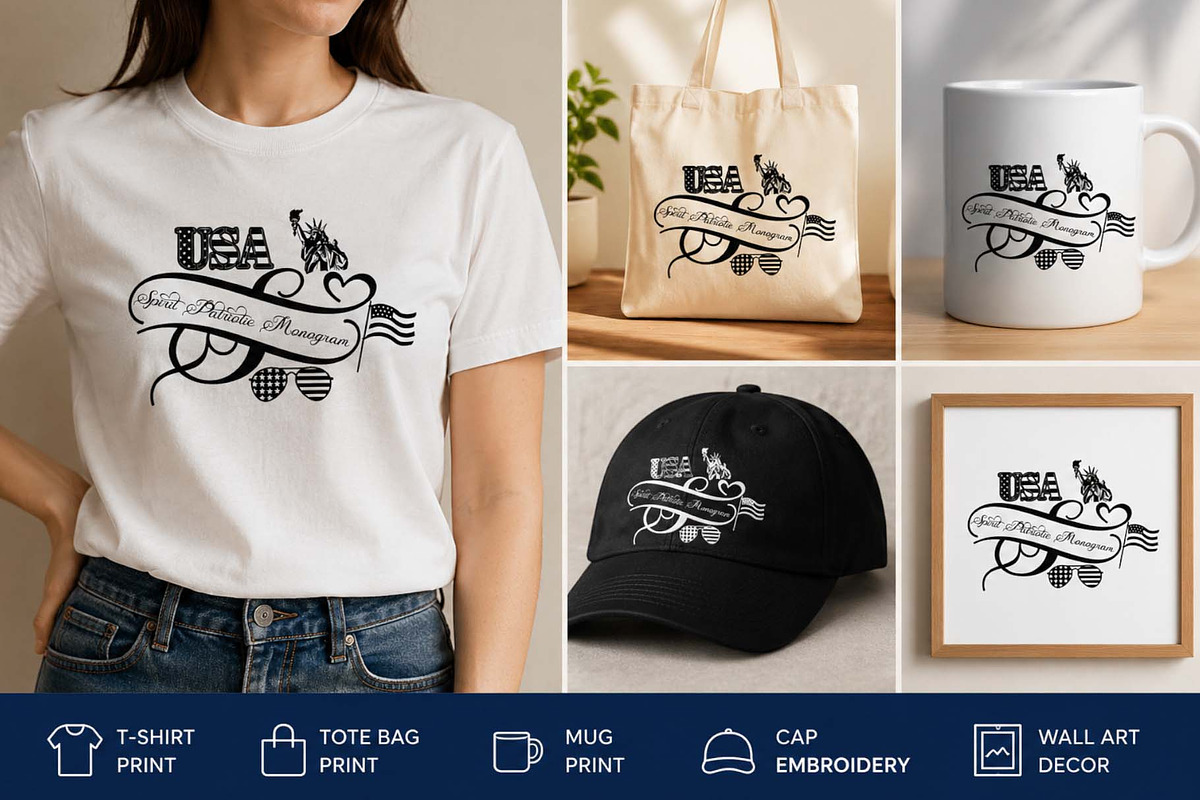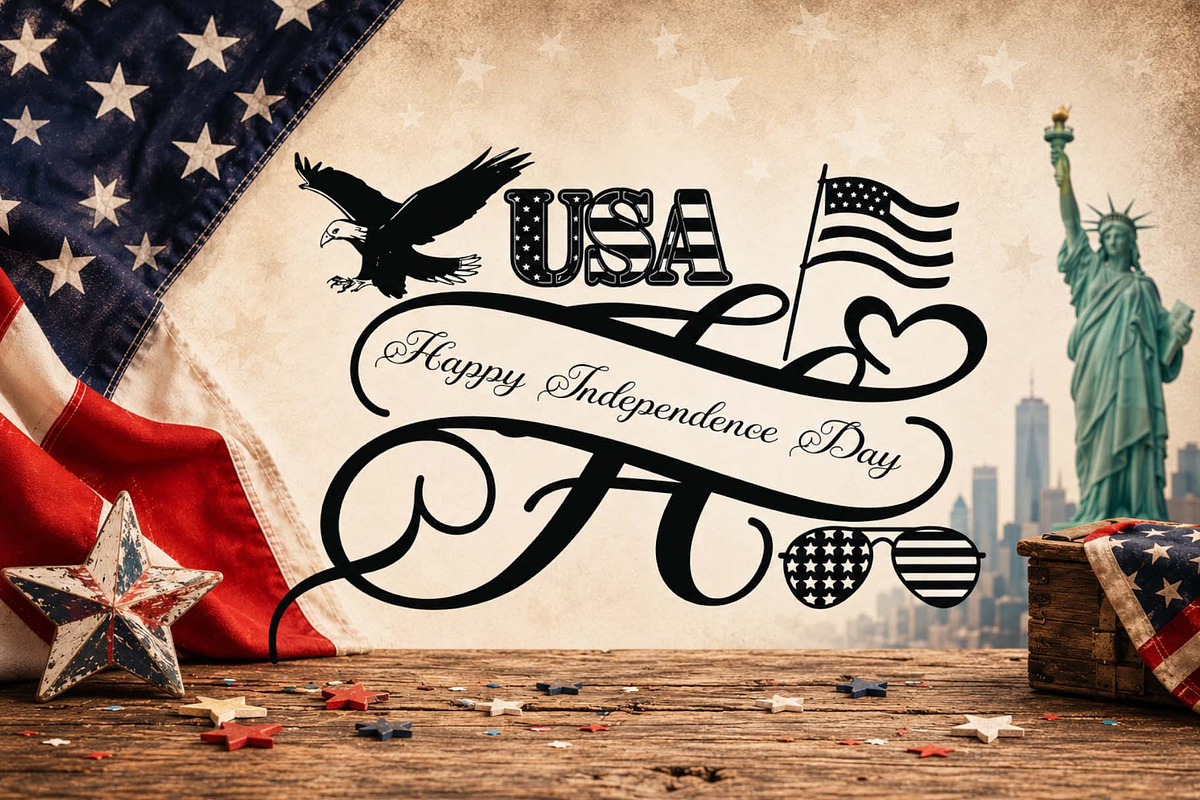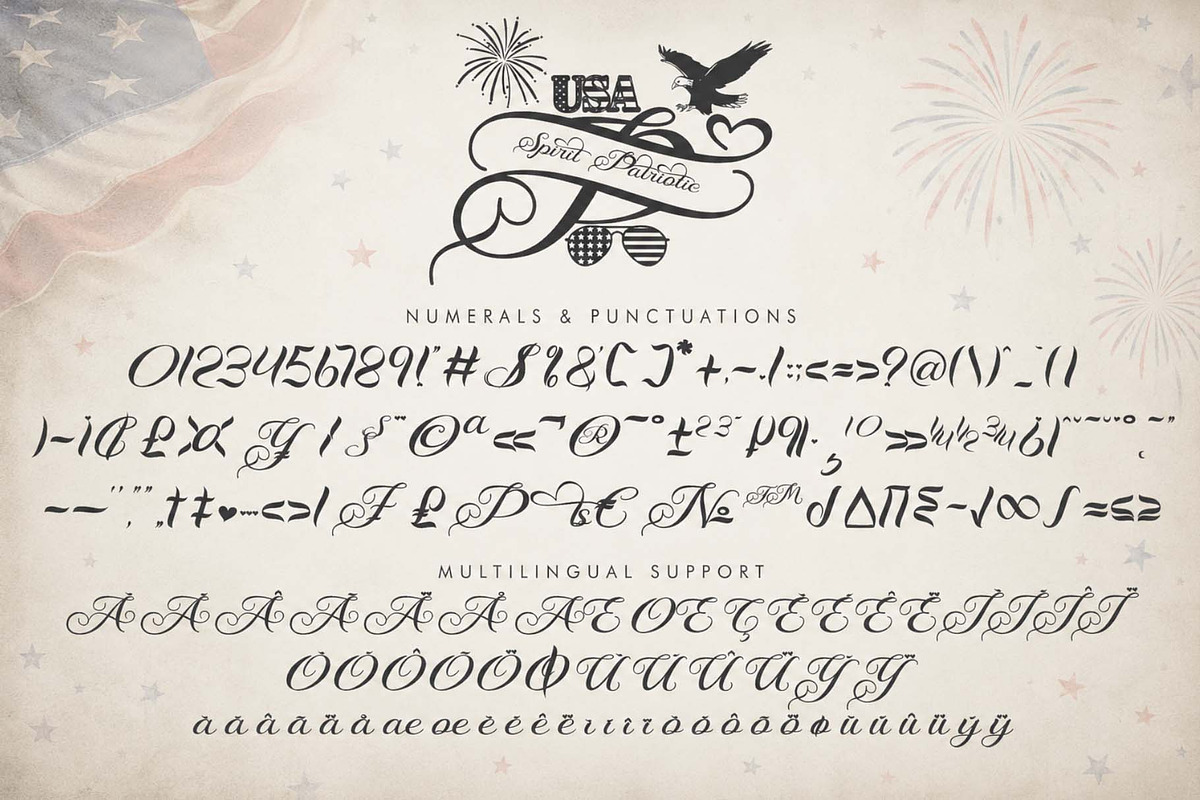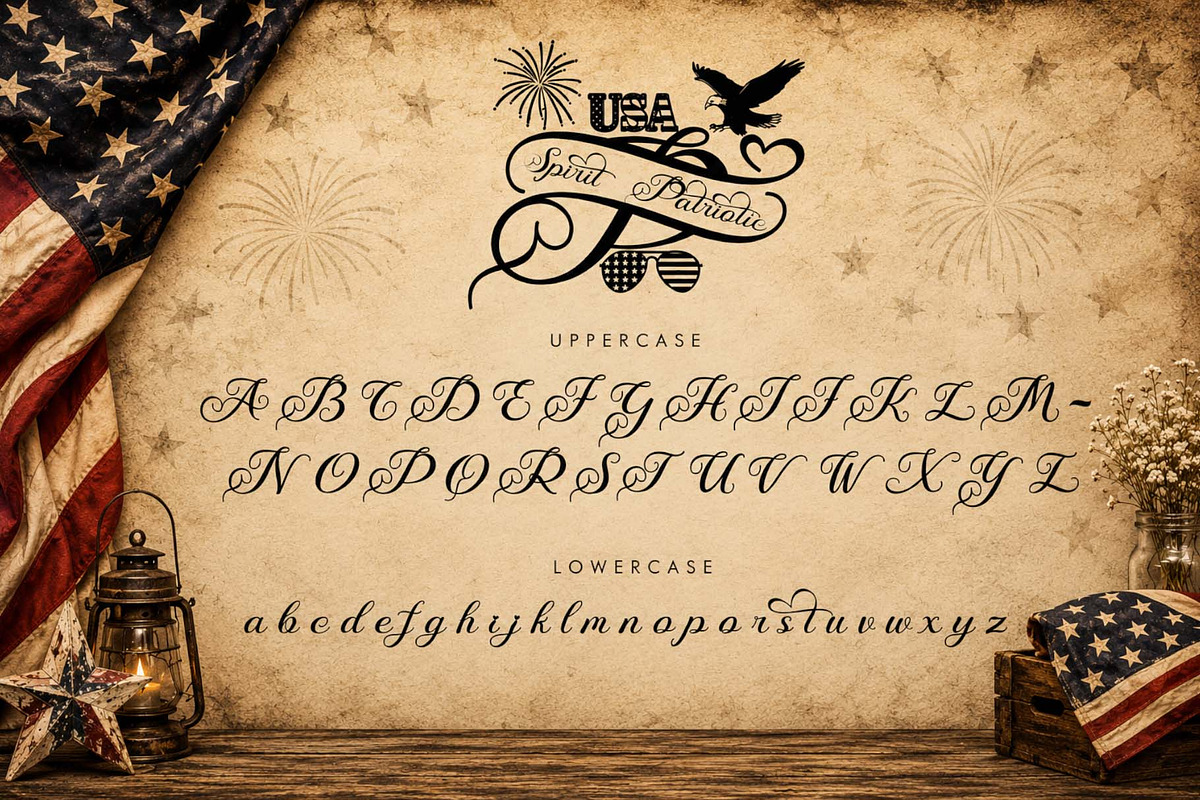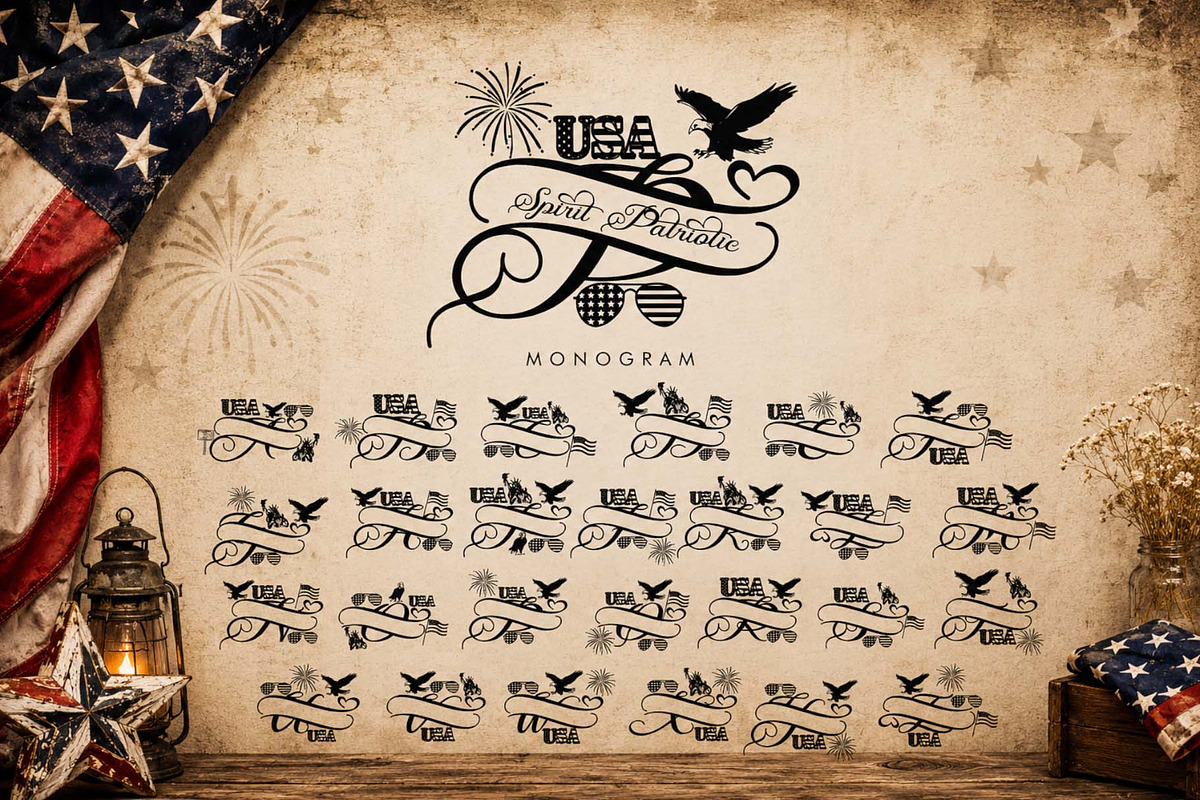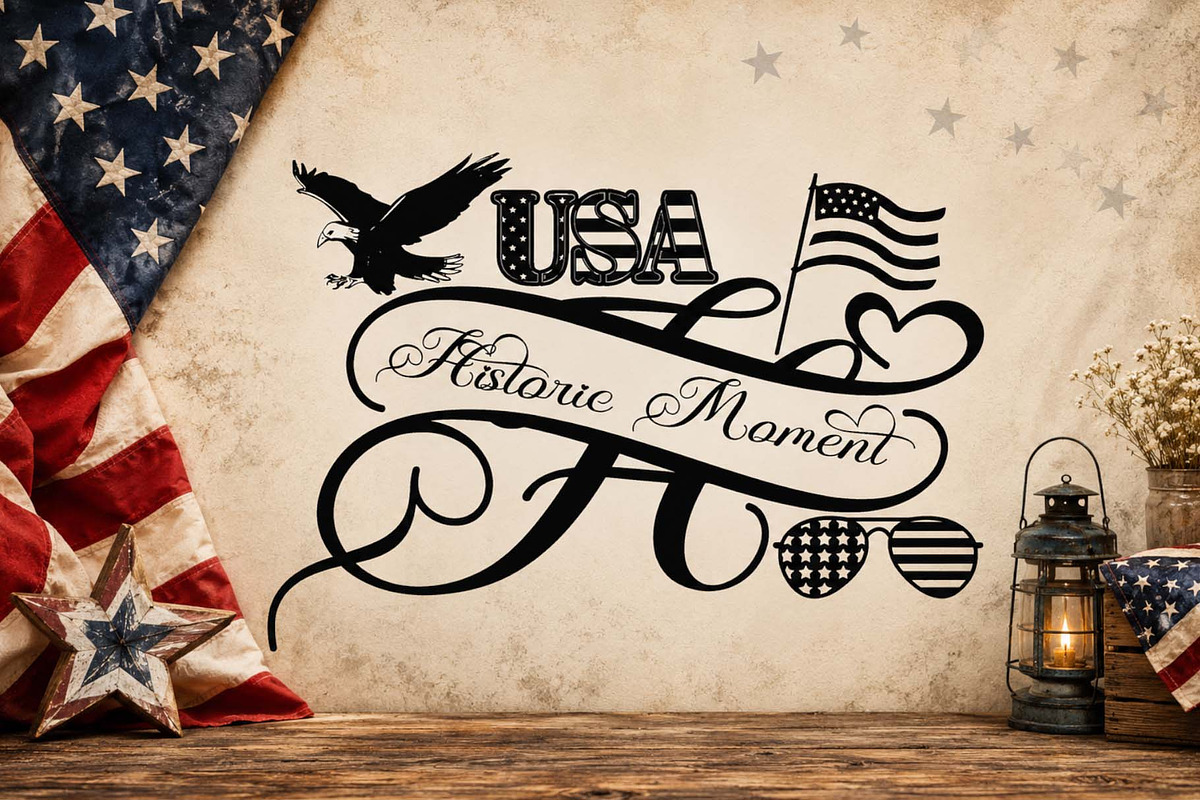
Spirit Patriotic Monogram
Spirit Patriotic Monogram is a decorative monogram font that combines elegant calligraphy with patriotic-inspired elements. Its graceful strokes, ornamental curves, and vintage charm make it perfect for creating personalized designs for Independence Day, patriotic celebrations, special gifts, apparel, home decor, and special event branding. This font adds a sophisticated yet festive touch to any project, making each design unique, stylish, and memorable.